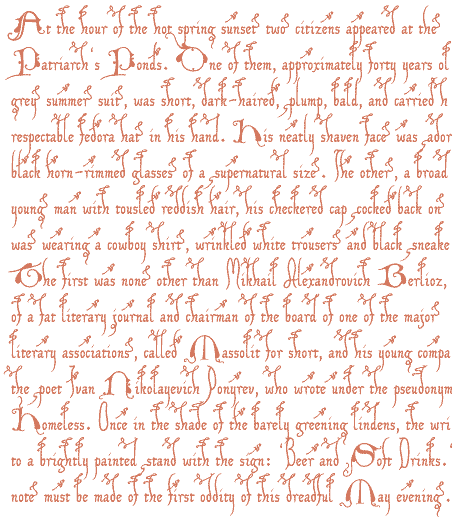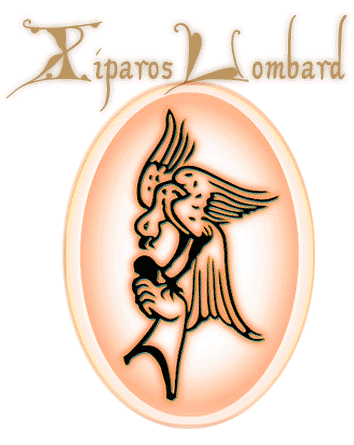
As to its lower case characters, the XiparosLombard font is identical with the XIPAROS font The XiparosLombard font contains no decorations, and you'll find all the brackets, curly brackets, and greater/less signs here that are lacking in the XIPAROS font, as well as the +, =, and bar sign. Do I need to mention that the number sign has taken the shape of a long s? Update 2010 has redesigned all of the composite glyphs (correcting the dcaron, Lcaron/lcaron, and tcaron), and enlarged the dashes. |
Opening paragraph of the novel The Master And Margarita by Michail A. Bulgakov;